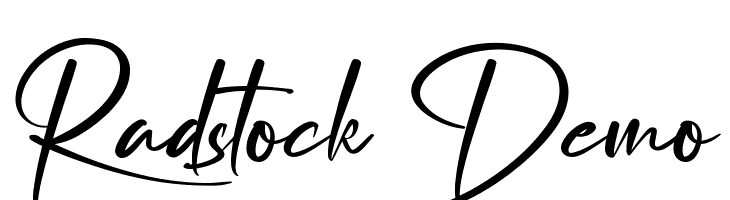
An elegant, flowing script font with interconnected letterforms and artistic flair.
A playful, rounded font with a whimsical and informal style.
A futuristic, geometric font with bold, rounded edges and consistent stroke widths.
A modern, geometric sans-serif font with clean lines and balanced proportions.
A modern, geometric font with rounded edges and a compact, condensed style.
A decorative dingbat font with assorted drink and beverage illustrations.
A modern, geometric font with uniform strokes and rounded edges.
A cursive, handwritten font with elegant, flowing strokes.
Decorative font with illustrated fan motifs and figures.
A bold, angular font with geometric and blocky letterforms.